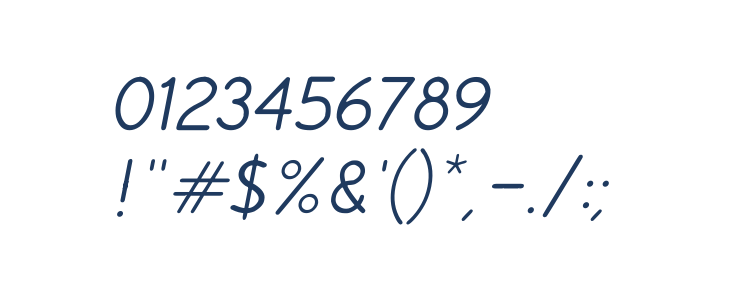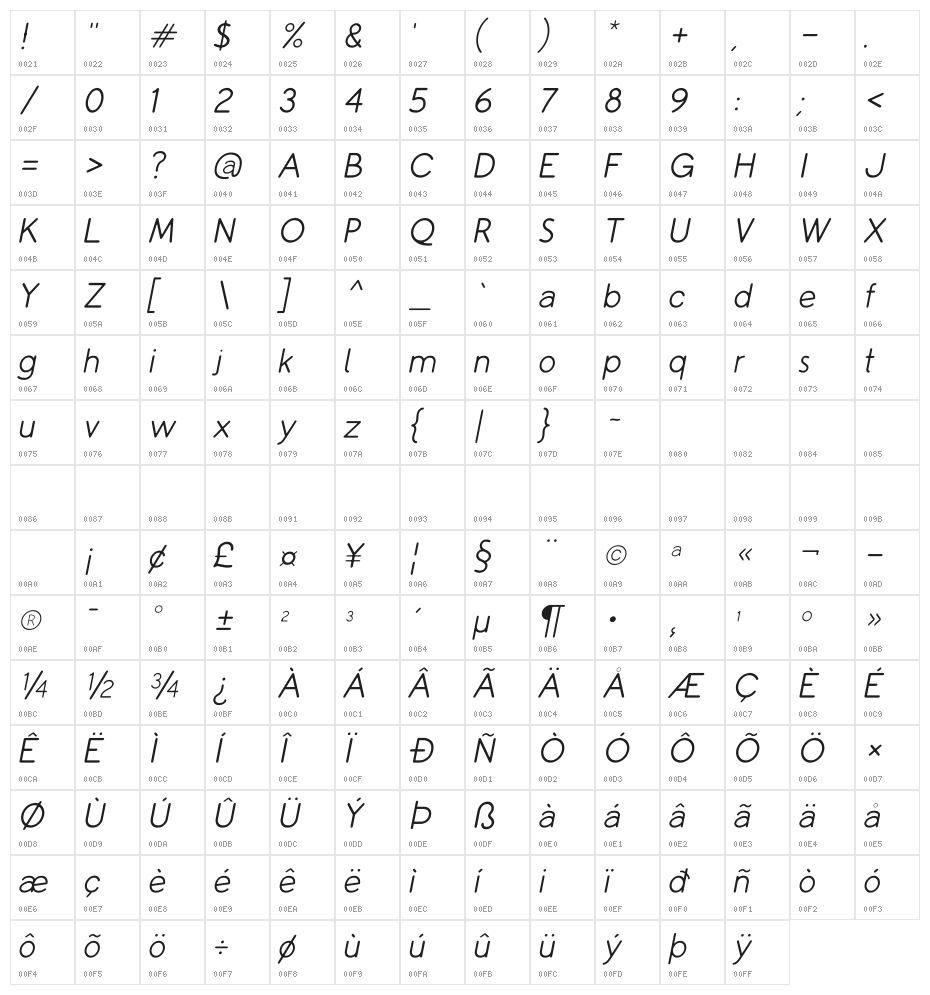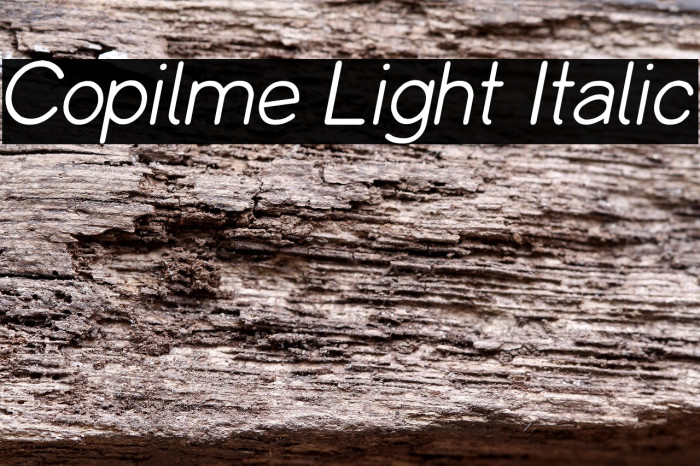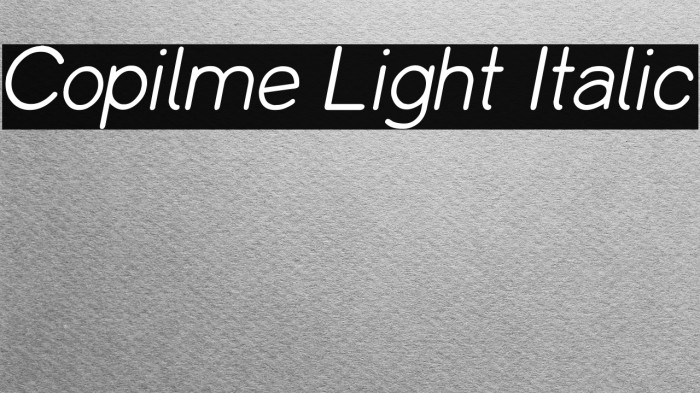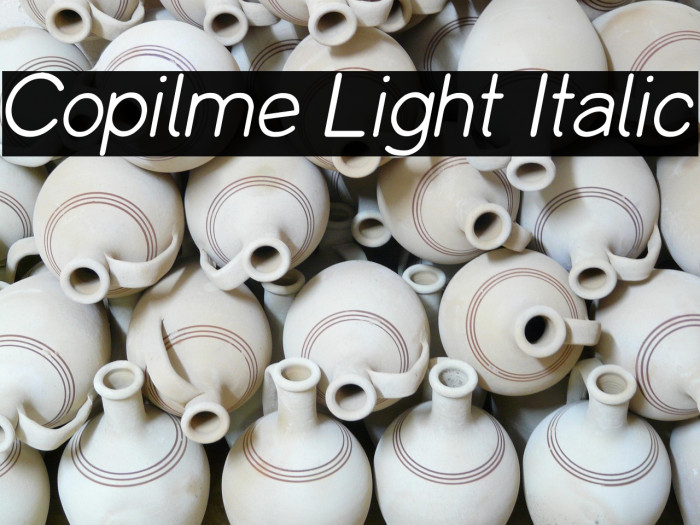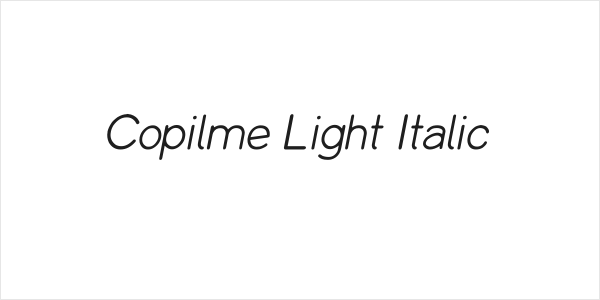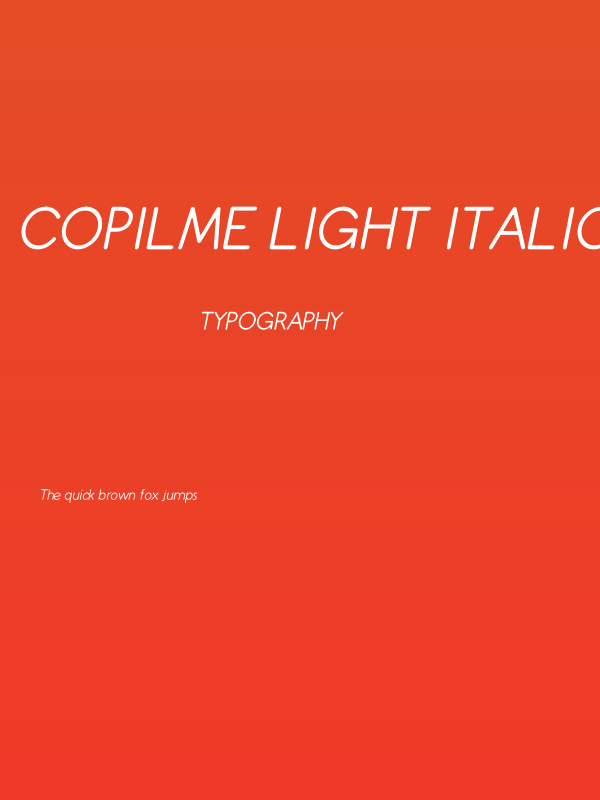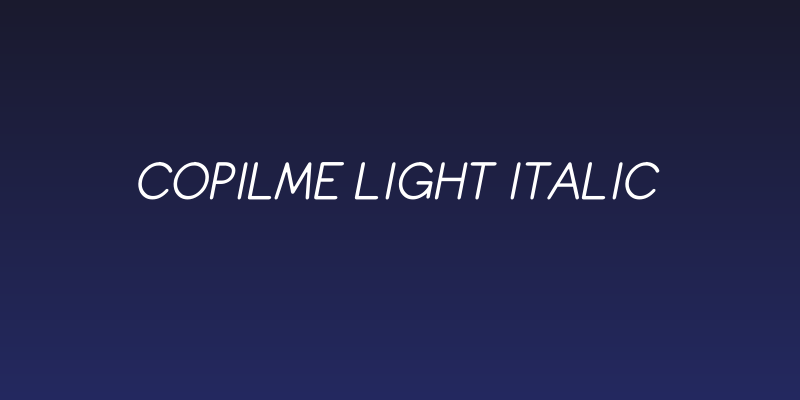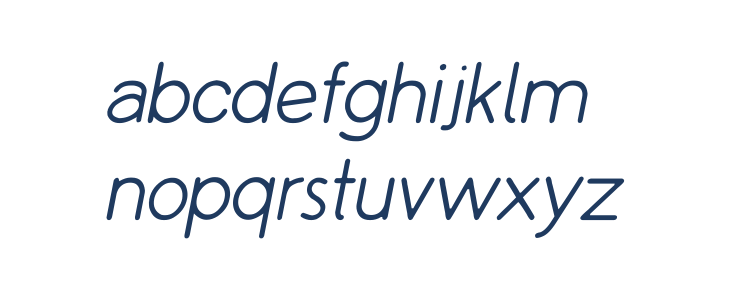
Copilme Light Italic Font
Copilme Light Italic Description
This font features a sleek and modern design with a light weight and italic style. The characters are slightly slanted, giving a sense of motion and elegance. The strokes are consistent and smooth, with rounded edges that add a friendly and approachable feel. The uppercase and lowercase letters maintain a uniform height, contributing to a clean and organized appearance. The numerals are clear and easy to read, while the special characters are well-integrated, ensuring versatility in various applications.